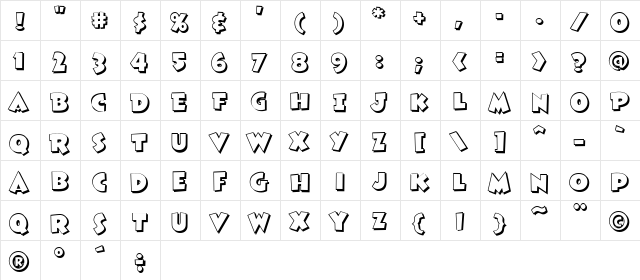
CCThatsAllFolksOutline Bold
Design Context for CCThatsAllFolksOutline Typeface
CCThatsAllFolksOutline brings ornamental detail and strong personality to headlines and identities, where visual impact matters more than quiet functionality. The heavy weight commands attention and anchors typographic hierarchies.
Font Pairing: Pair with a clean neutral sans-serif for body copy to let CCThatsAllFolksOutline's character lead without overwhelming the composition.
Pro Tip: Treat CCThatsAllFolksOutline as the centrepiece of your typographic hierarchy. One strong heading set in a decorative face can carry an entire layout.